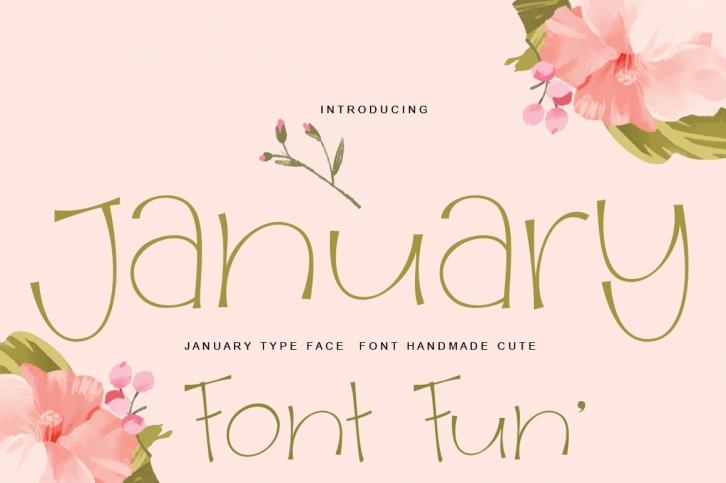
january is a beautiful font that was designed by HD font studios. It's a great choice for designers and creatives who need such a font. It was released on January 14, 2020 and the file size is 21.79 MB. january may give a more youthful, expressive and casual look to your project. It is a very beautiful, refined, elegant, and high-quality font.